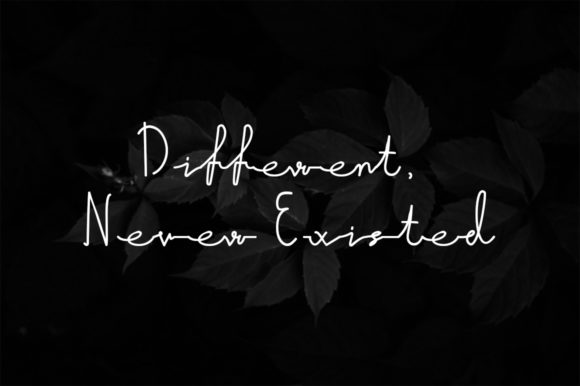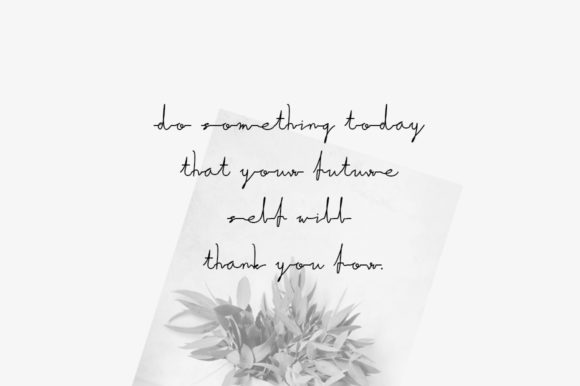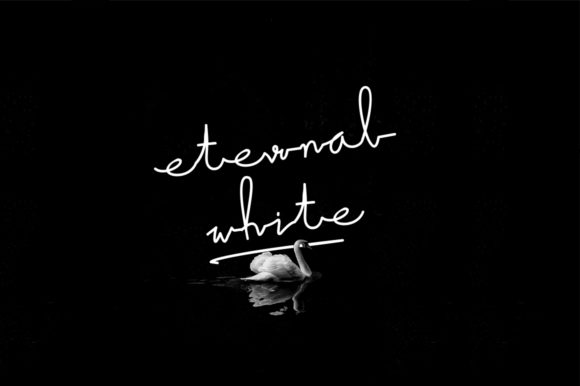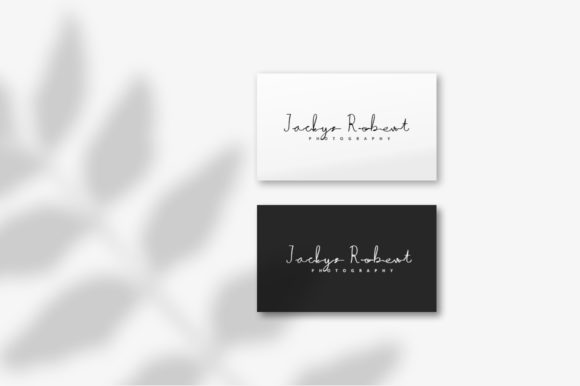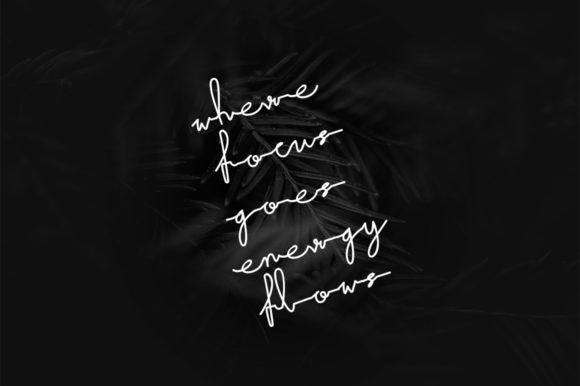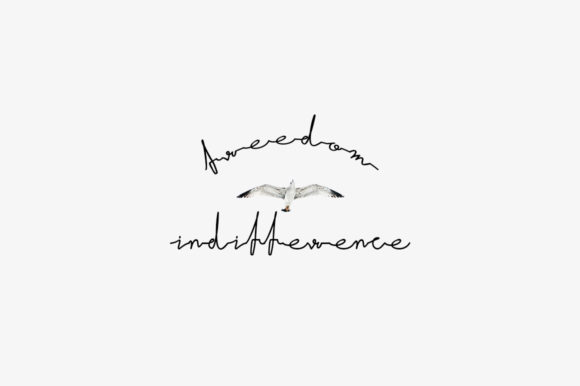
Introduction to Quickness Font
Quickness is an exquisite handwritten font, masterfully designed to become a true favorite.
Why Choose Quickness Font?
Quickness Font offers exceptional quality and versatility, making it a valuable addition to your design toolkit. Whether you’re creating for personal projects or commercial use, Quickness Font delivers professional results.